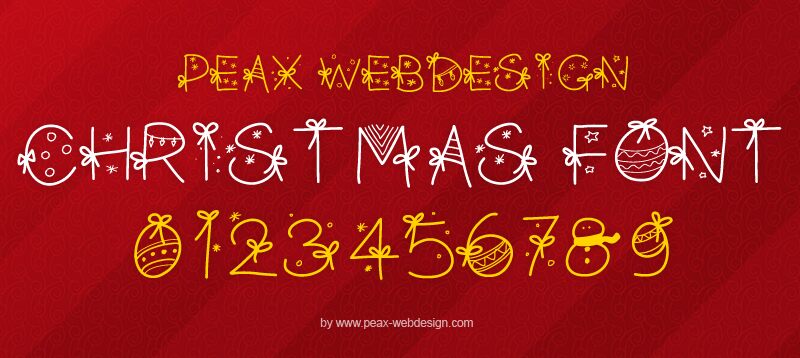
PW Christmas font by Peax Webdesign is a free Christmas display font built from tall, airy capitals and lively hand-drawn lines. Bows, stars, hanging ornaments, garlands, and a striped bauble are woven through the letters, turning the alphabet into a continuous run of festive decoration.
Those illustrated details connect directly with gift wrap and greeting-card artwork, where the lettering can share the same ribbons and ornaments as the surrounding graphics. It also suits party invitations and seasonal shop signs, especially when the type itself needs to supply the Christmas imagery.